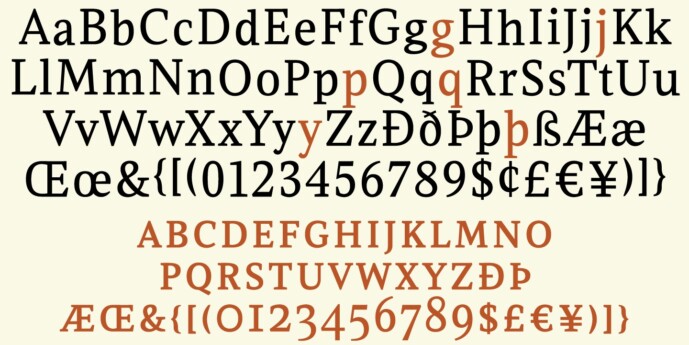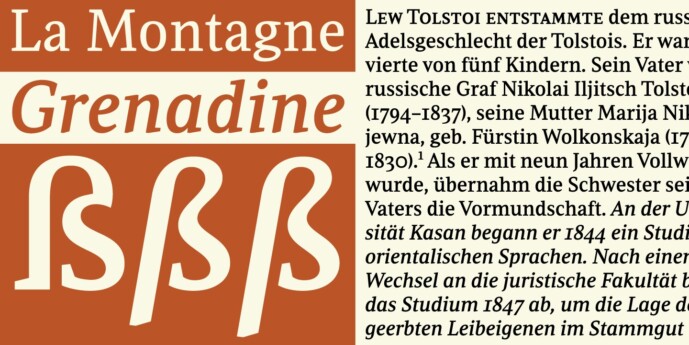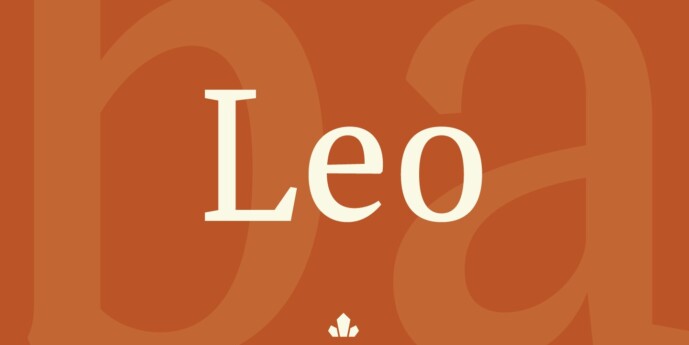
Leo Font Family
Leo Font Family is an economic magazine and book face meant for use in sizes suitable for immersive reading, with different cuts optimized for different body copy size ranges, like footnotes and legal text. Designed with the explicit intent of relaying information without calling attention to itself, this typeface places itself squarely on the “function” side of the eternal debate about form versus content. The roman Leo fonts were built with as little ornamentation as possible, with wedge serifs, a high x-height and a skeleton somehwat rooted in the designers’ reflections on the modern, post-war Dutch archetype. Rather than follow traditional models with entirely different forms, contracted widths and steep slants, the Leo italics deliver naturally subtle emphasis in reading by closely relating to the forms, stance and rhythm of their roman counterparts. The 12 Leo fonts contain over 700 glyphs each, and include support for the vast majority of Latin languages. Included OpenType features are built-in small caps, lining and oldstyle figures in both proportional and tabular sets, superiors, numerators, denominators inferiors, ordinals, automatic fractions, ligatures, and optional long descenders for optimal counterspace management in book and magazine text layout. For more information on Leo’s character set, features and some print tests, please consult the PDF in the gallery section of this page.